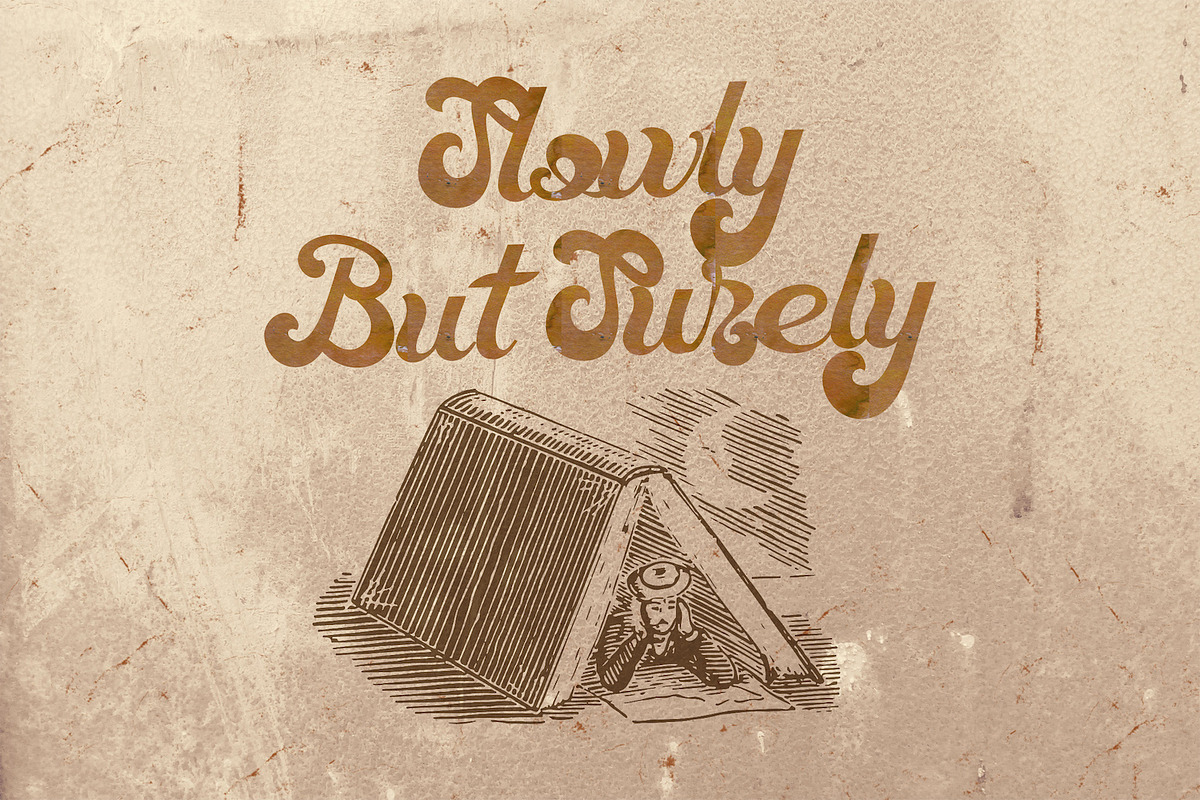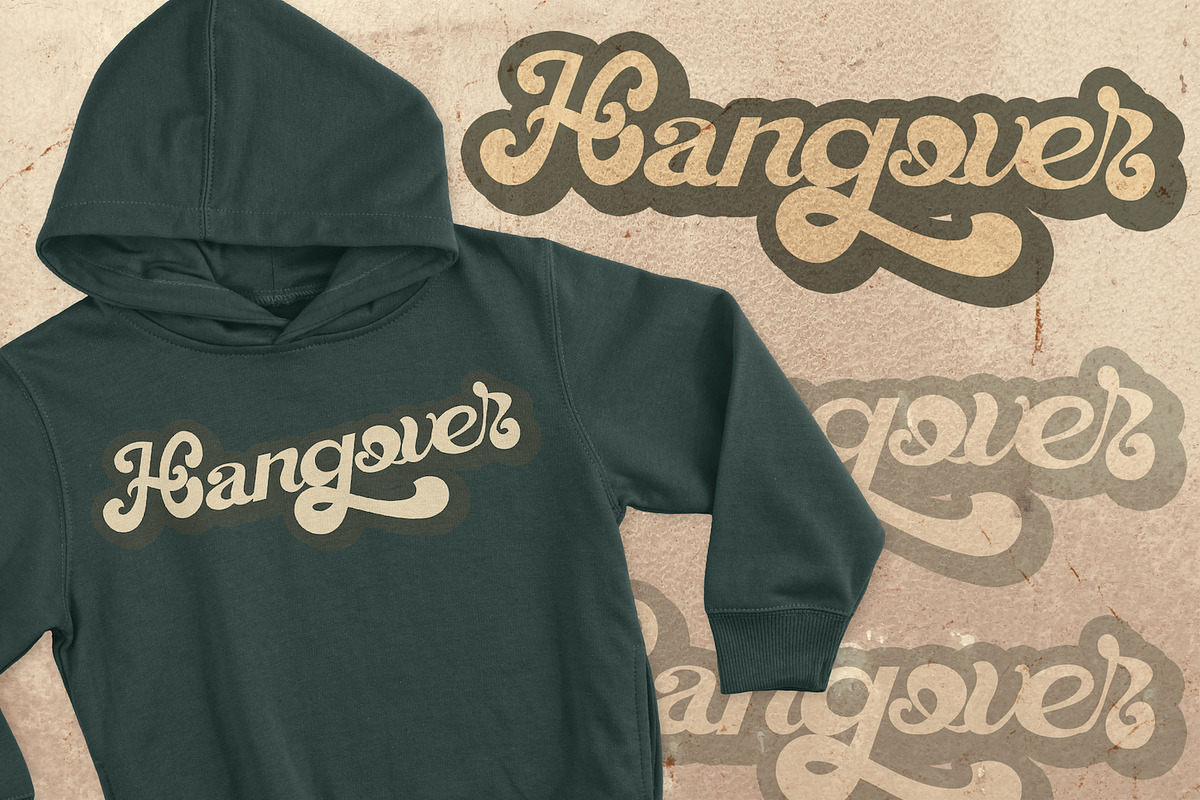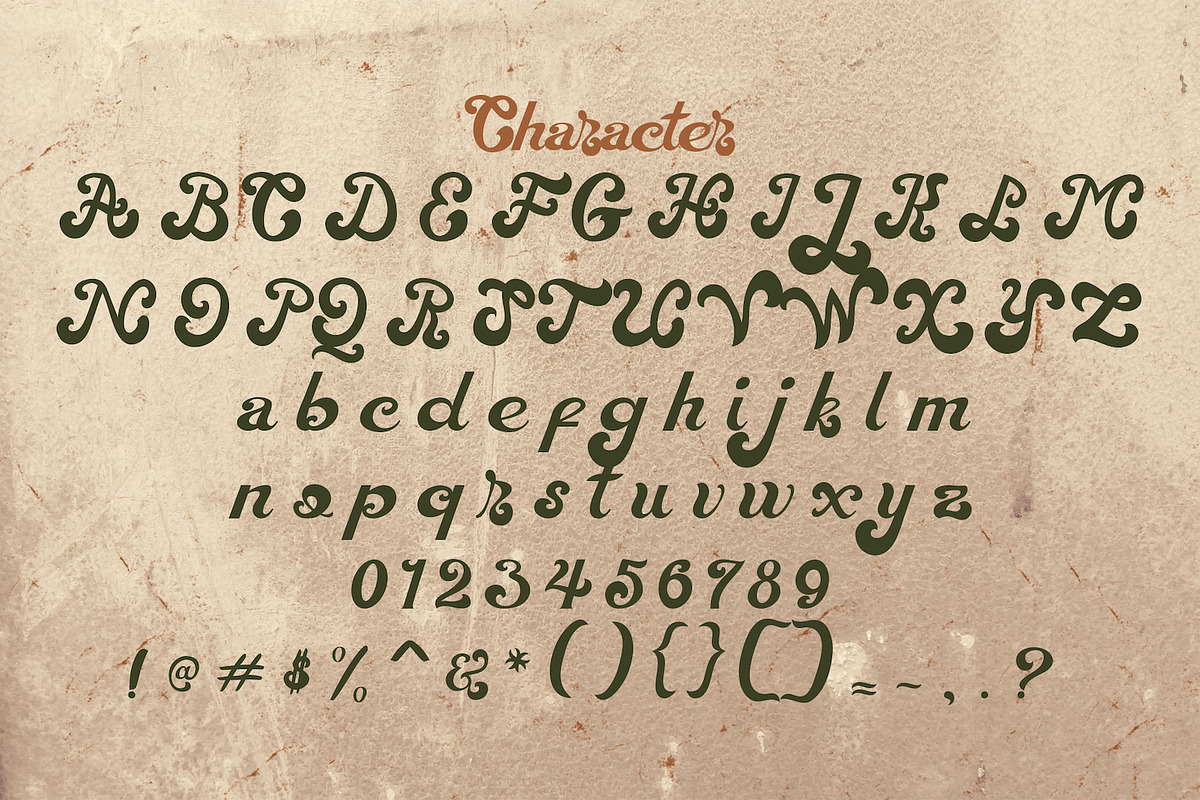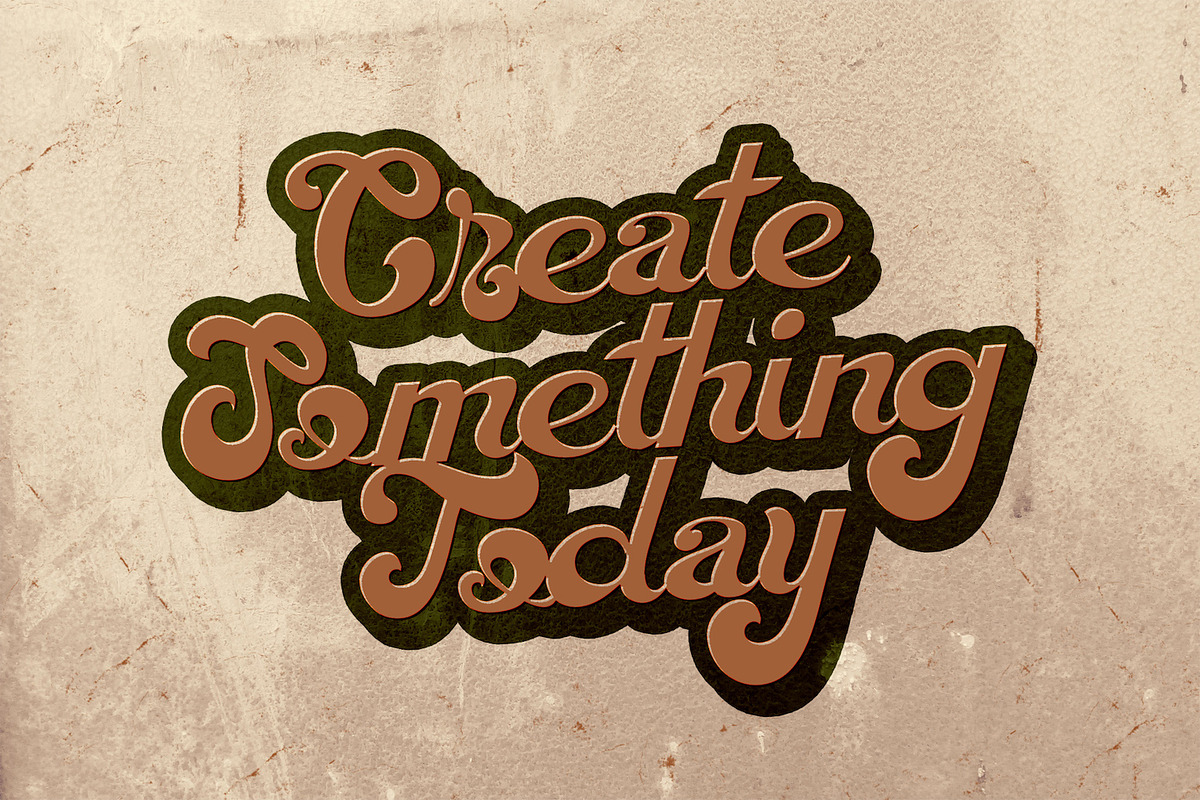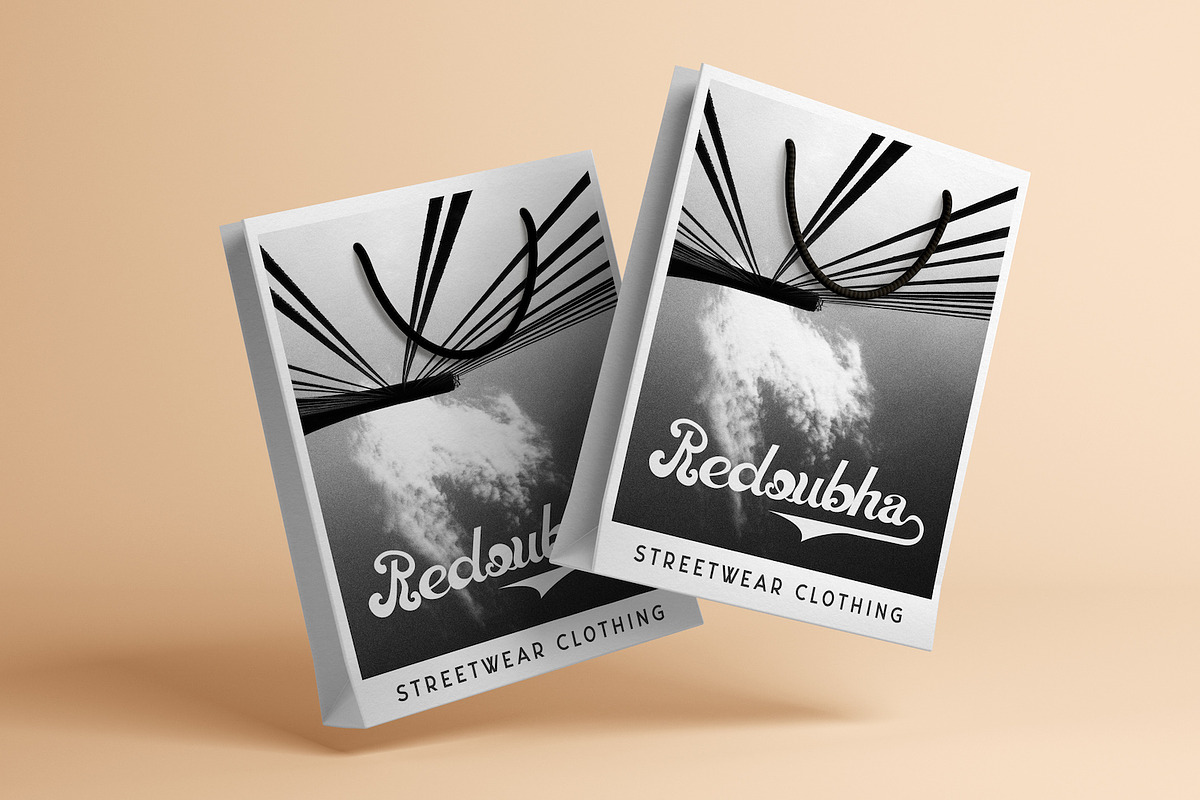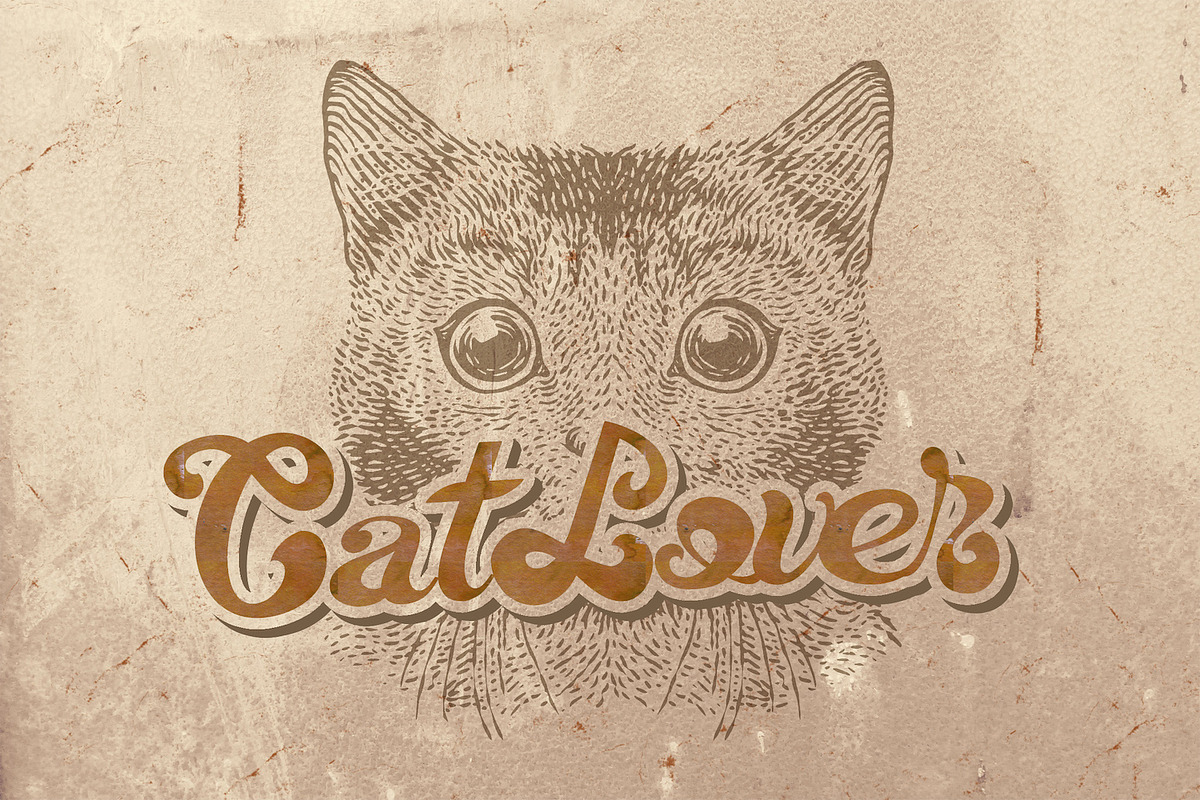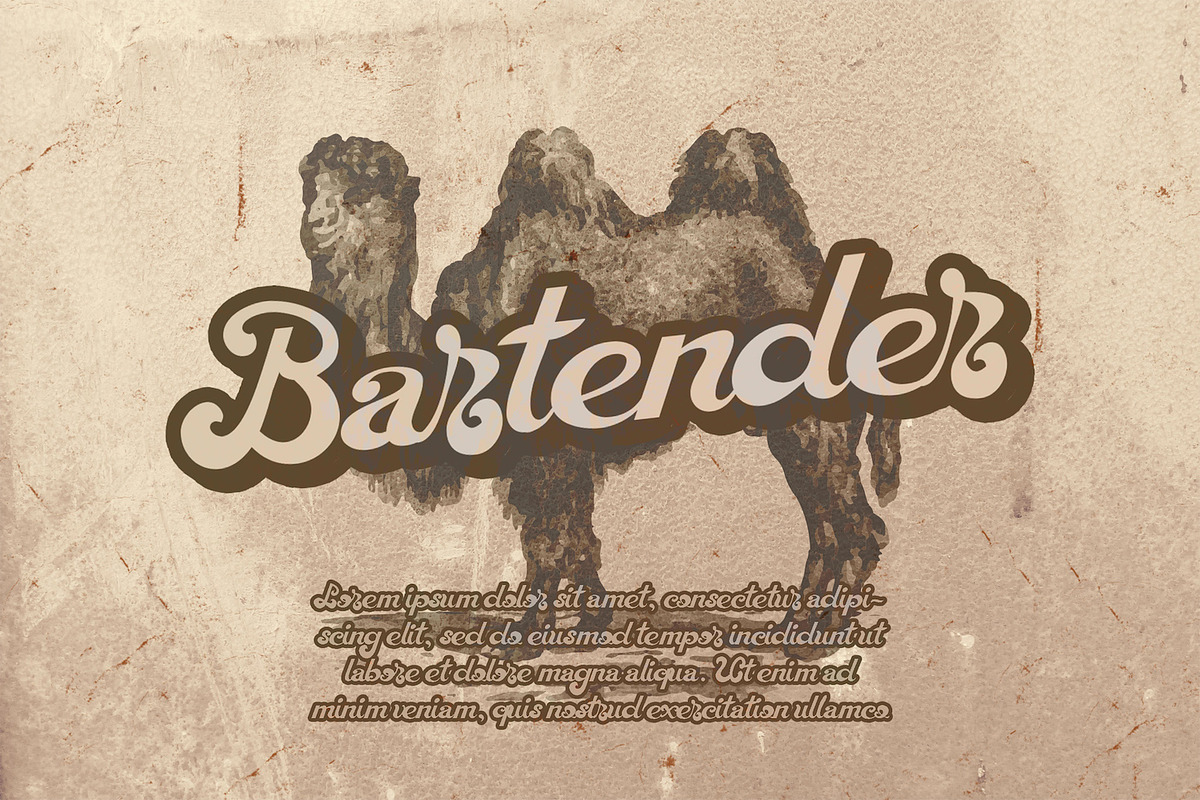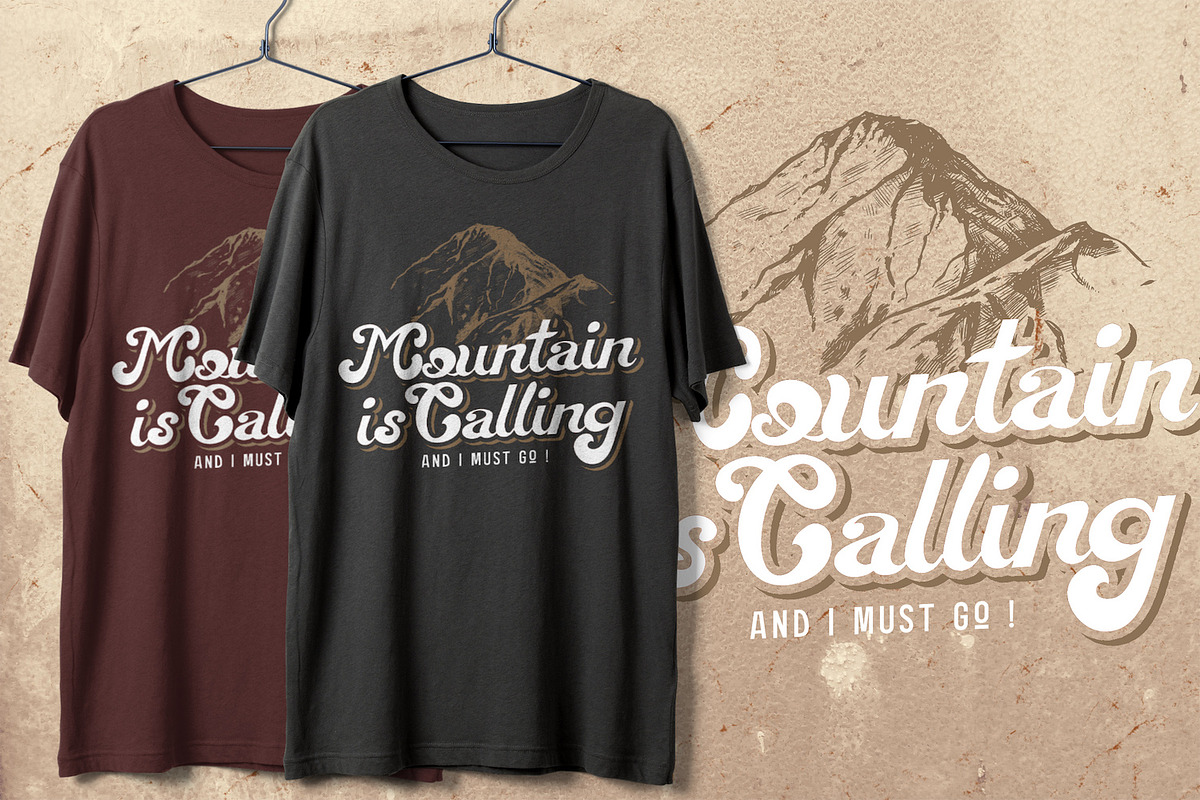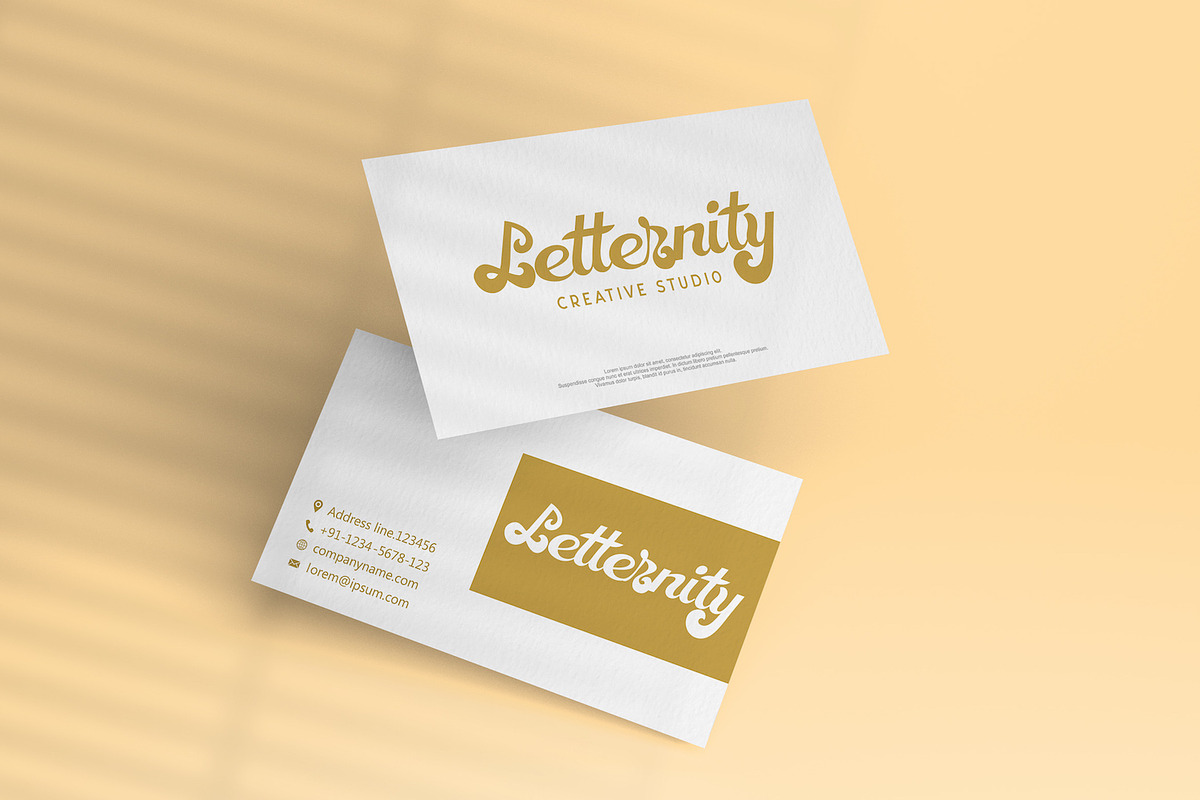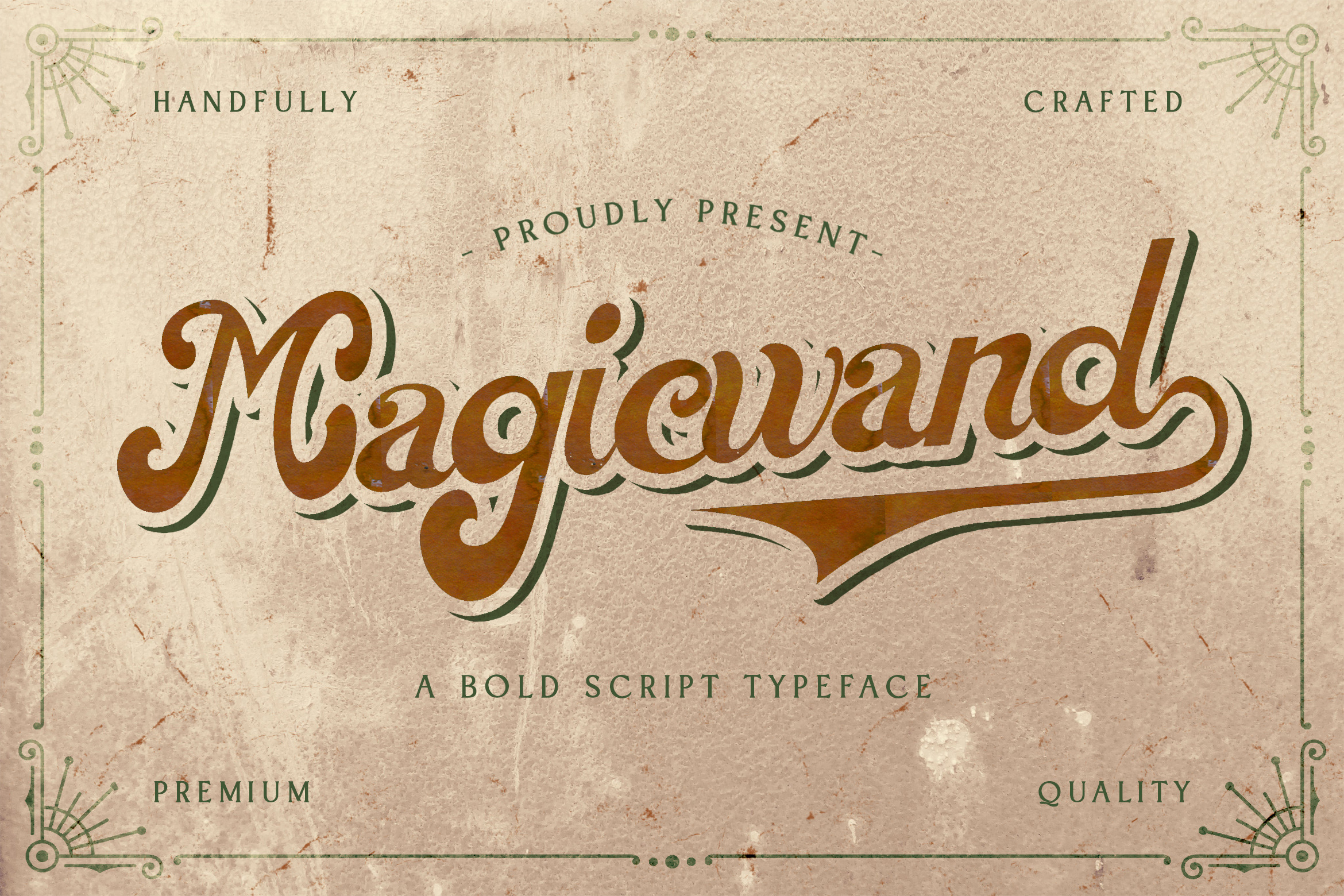
Magic Wand - Bold Script Font
Introducing Magic Wand - Bold Script Font
Magic Wand is a bold script with groovy retro style. This font has a unique feel and you can use it to add that special retro touch to any design idea you can think of!